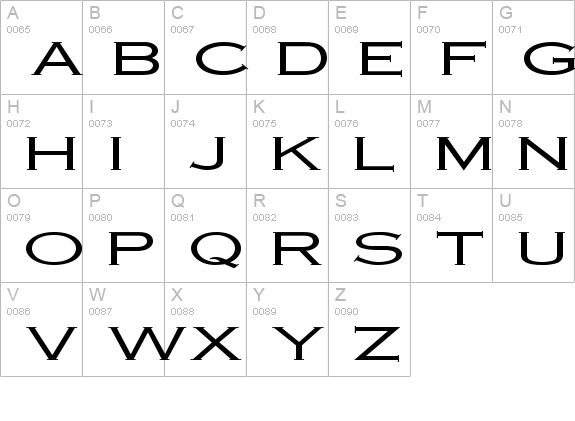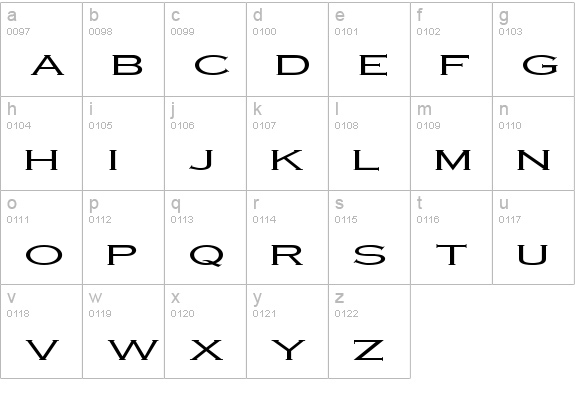
Cobalt Extended Normal is the standard, neutral, extended-width variant in the Cobalt typeface family \xE2\x80\x94 well suited to general body text, paragraphs, and standard typographic work.
The Cobalt Extended Normal font is a sleek and modern typeface that exudes sophistication and elegance. With its clean lines and stylish curves, this font is perfect for a wide range of design projects, from branding to editorial design. The Cobalt Extended Normal font is versatile and easy to read, making it suitable for both display and text use. One of the best things about the Cobalt Extended Normal font is that it is completely free to download. You can easily access this stunning font at FontsMarket.com, where you can download it and start using it in your projects right away. With its timeless design and professional quality, the Cobalt Extended Normal font is sure to elevate your designs and make a lasting impression.